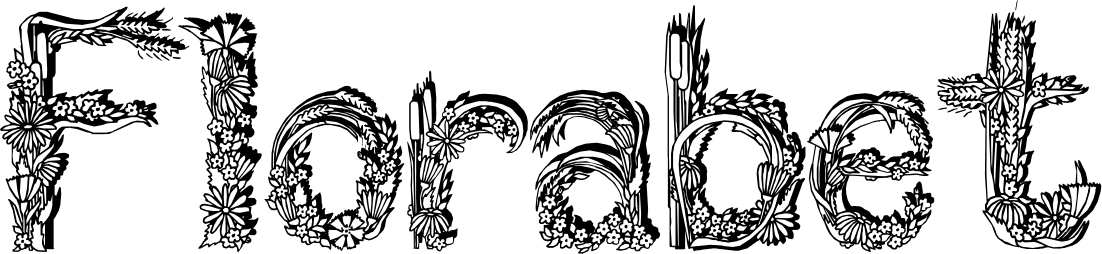
Florabet Font
Florabet font has a fancy and decorative vibe which is a perfect feature that you can use for a variety of projects like hand-lettering, branding, clothing, card design, posters, books, social media posts, etc. With this floral font, you get both the uppercase and lowercase of the alphabet and the numbers.